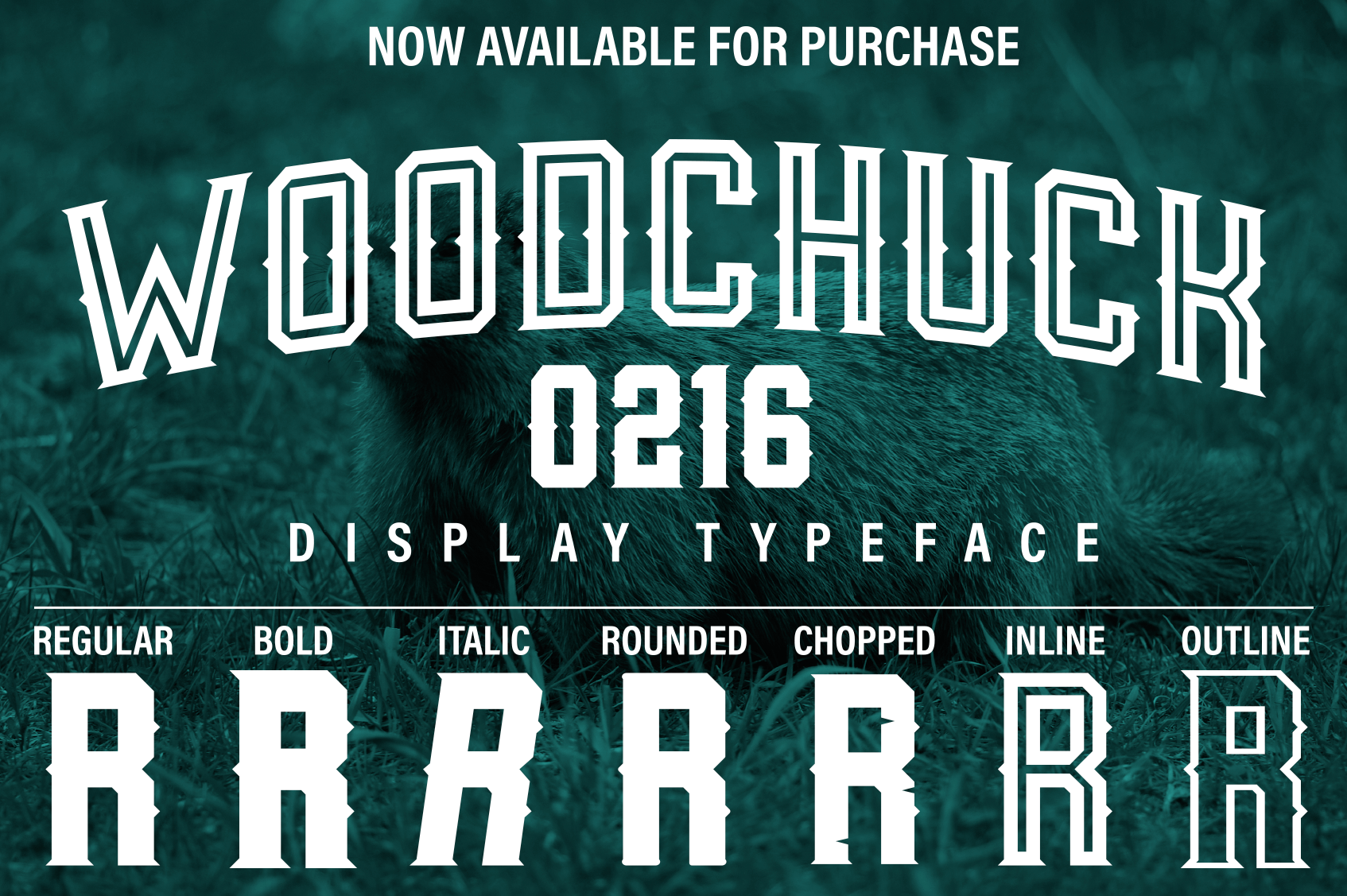
Woodchuck 0216 Display Typeface
It's alive & ready to chuck wood. Woodchuck 0216 is finally here.
With 7 different studded styles, Woodchuck 0216 a very versatile typeface. Of course there's the regular, bold & italic versions, but also a rounded, chopped, inline & outline versions as well.
Woodchuck 0216 is the second in a series of 12 fonts that will be released in 2016.